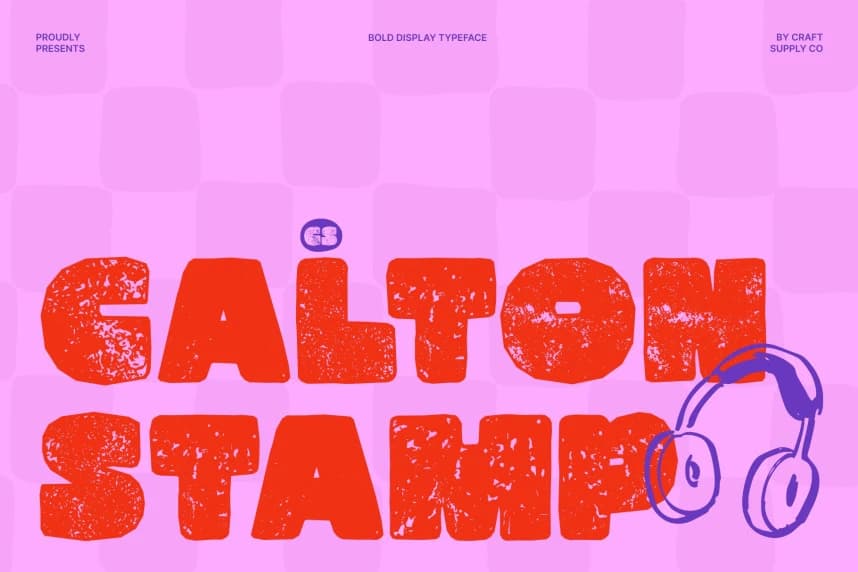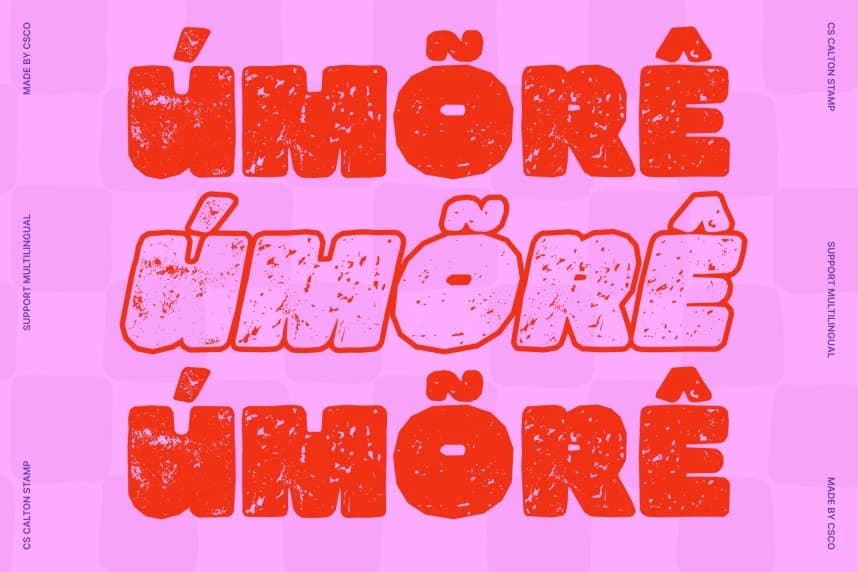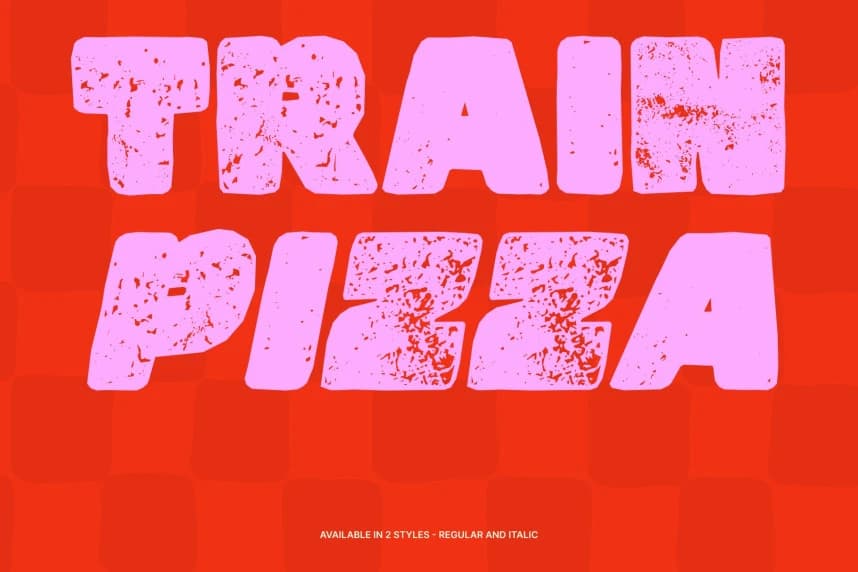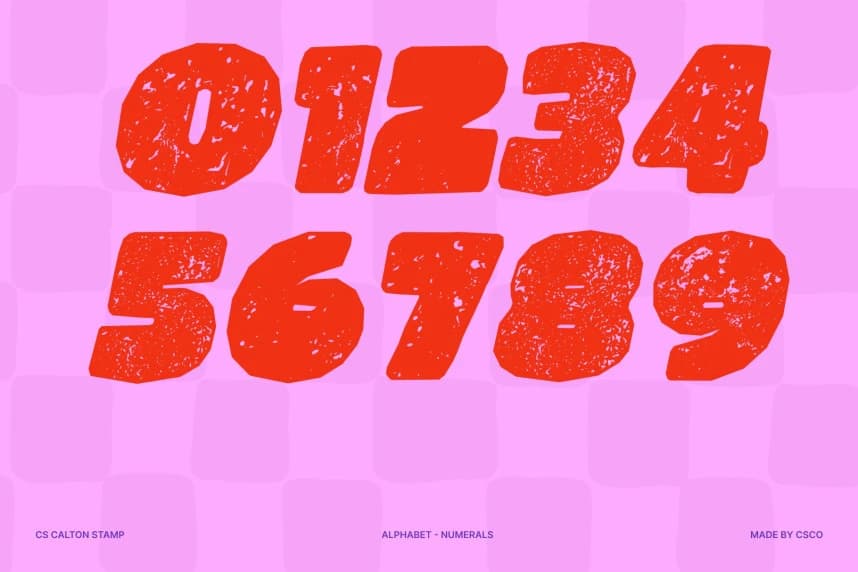
CS Calton Stamp Font
CS Calton Stamp Font – Bold Impact with Vintage Stamp Character Powerful Display Sans Serif with Textured Personality. This is a bold display sans serif font designed to command attention